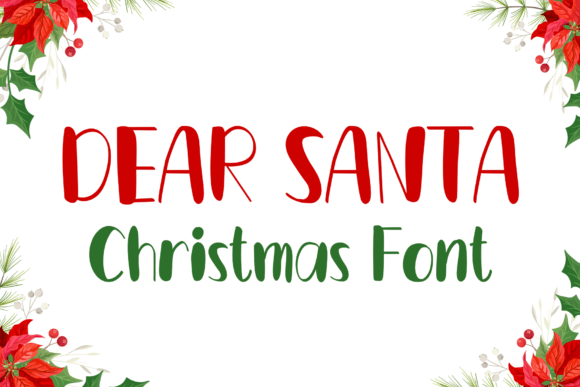
Introducing Dear Santa Font, the ultimate choice for all your card making needs! This delightful script font, created by Digital Creative Art, is here to infuse your projects with a touch of whimsy and charm. Get ready to captivate your audience and bring your card designs to life like never before!
Dear Santa Font is not your ordinary typeface – it's a perfect blend of fun and quirkiness. With its handwritten style, it exudes a genuine warmth that will instantly grab attention and make any message feel personal. Whether you're designing holiday cards, party invitations, or heartfelt notes, this font will help you leave a lasting impression.
What sets Dear Santa Font apart is its versatility. It seamlessly adapts to various themes, making it suitable for any occasion. From festive Christmas greetings to romantic Valentine's Day messages, this font can do it all. Its playful curves and unique character variations add a touch of flair to every word, making your designs stand out from the crowd.
Embrace the power of Dear Santa Font and let your creativity soar. Its wide range of glyphs and ligatures allows you to experiment with different combinations, ensuring that every word looks visually appealing. With its effortless elegance, this font effortlessly conveys the emotions and sentiments behind your cards.
So why wait? Unlock the magic of Dear Santa Font and take your card making to new heights. Its captivating charm, rich character, and seamless adaptability make it the go-to choice for designers and enthusiasts alike. Spread joy, love, and happiness with every stroke of the pen – or rather, every click of the keyboard.